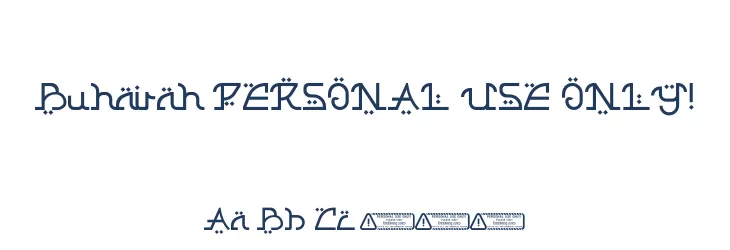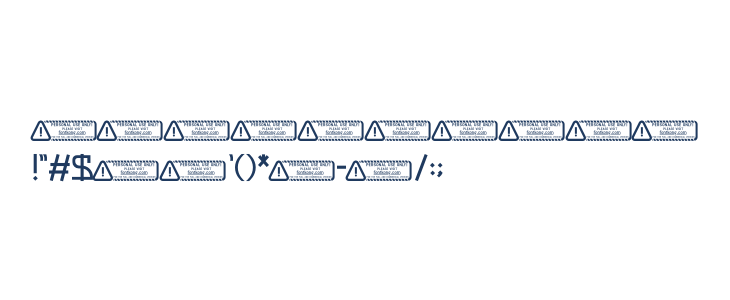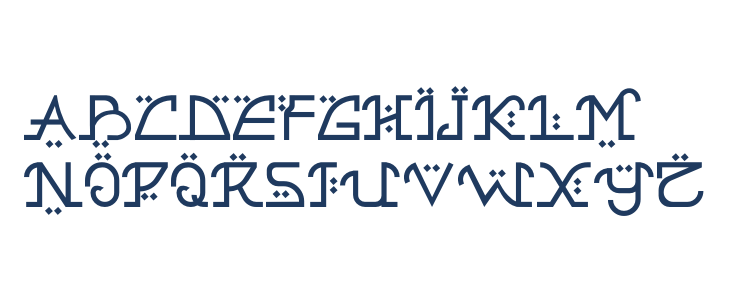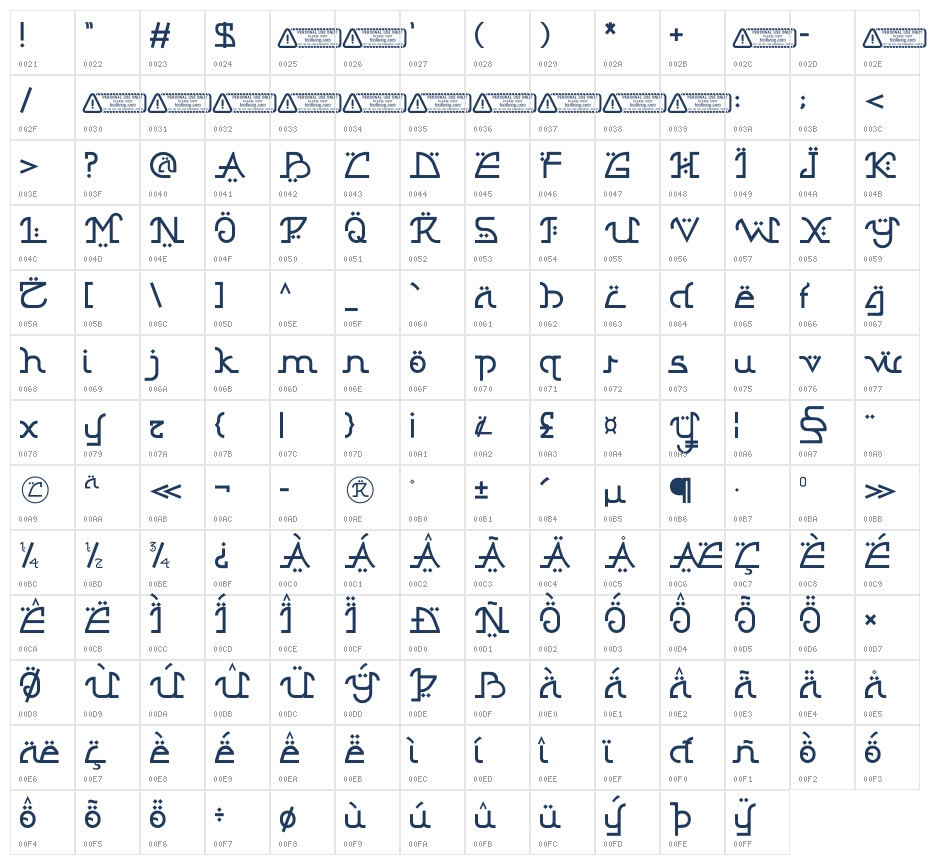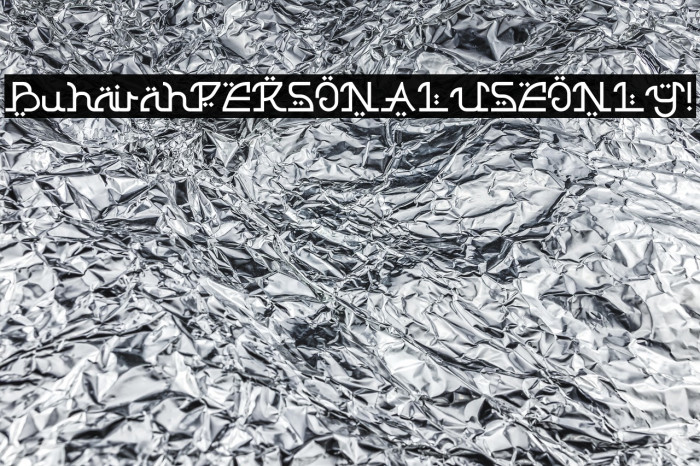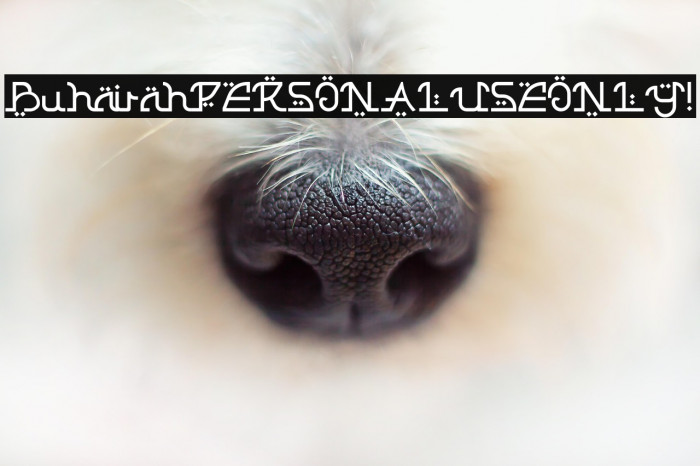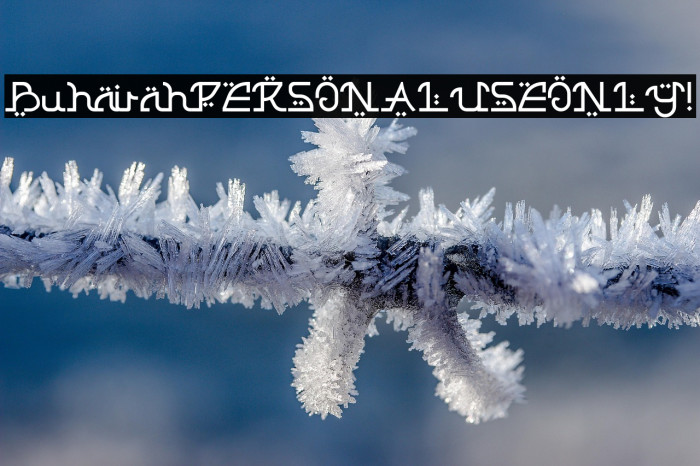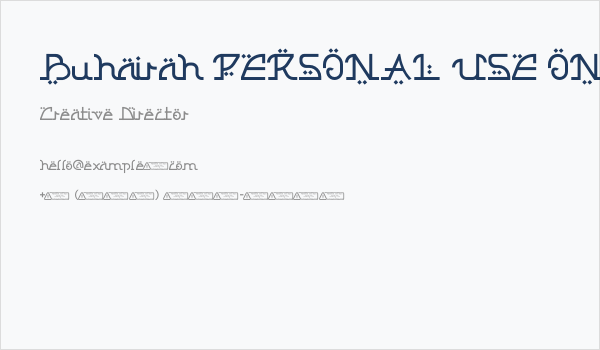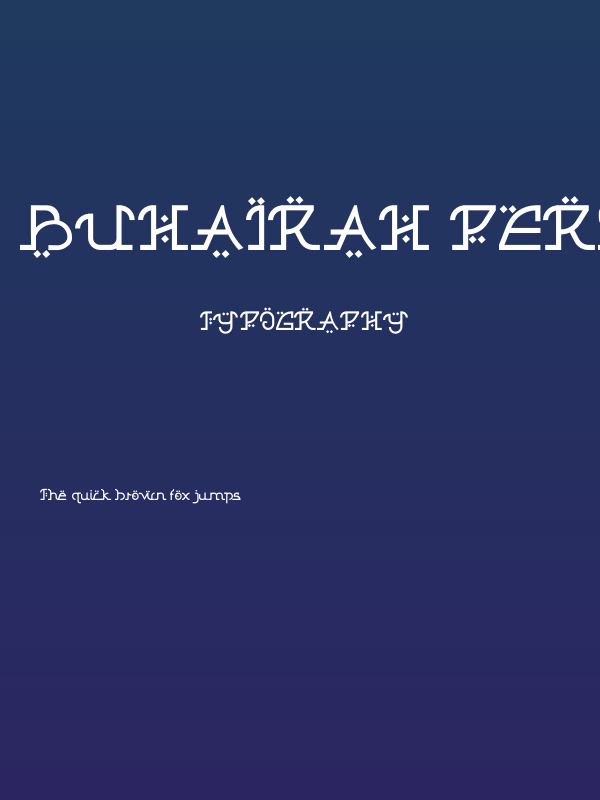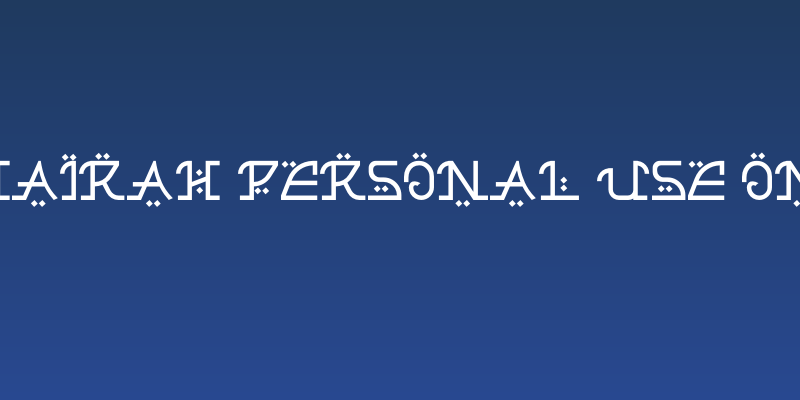
Buhairah PERSONAL USE ONLY! Font
Buhairah PERSONAL USE ONLY! Description
A decorative, futuristic sans-serif font with unique diacritical marks and stylized letterforms, featuring a geometric and technological aesthetic.
| Overall Style | Modern, Futuristic |
| Use Case | Headlines, Logos, Digital interfaces |